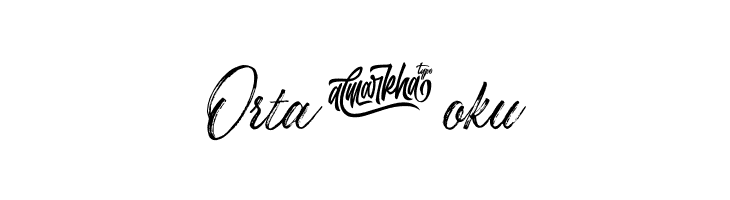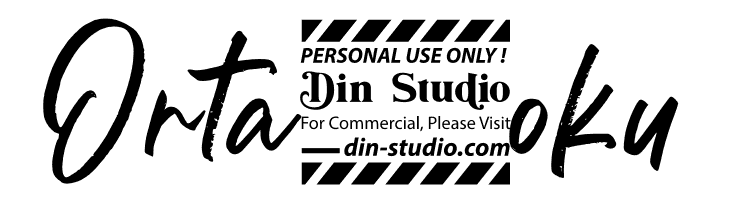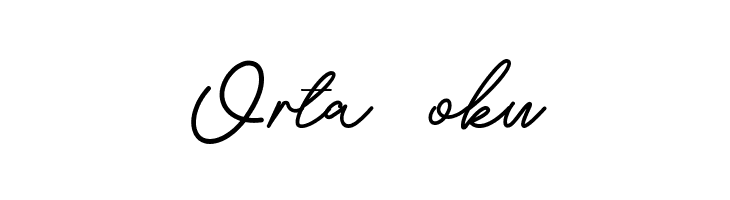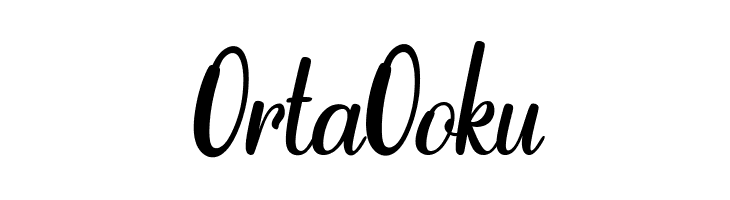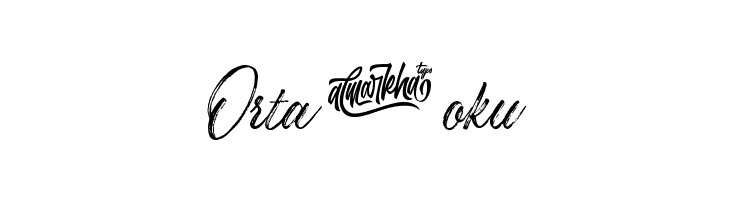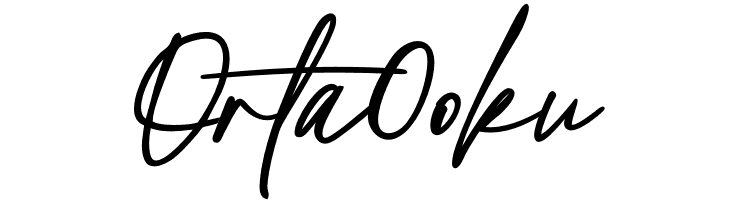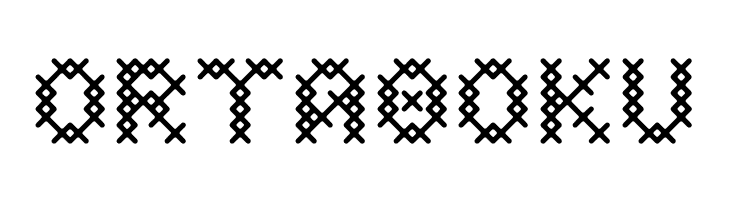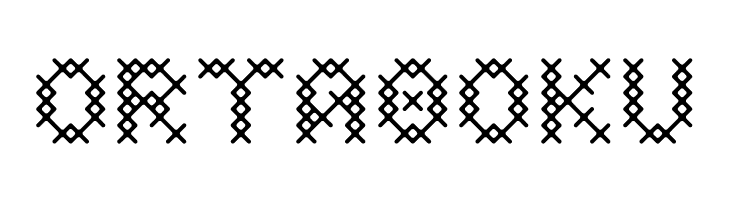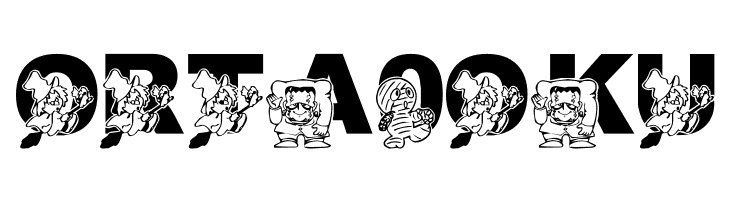
Costa Rica Font
Rafael Ferran i Peralta
A bold, geometric font with a strong, modern aesthetic.
Costura Light Font
A cross-stitch patterned font with a handcrafted, artisanal feel.
Hotel Costes Personal Use Regular Font
An ornate and elegant script font with decorative flourishes.
Costura Bold Font
A bold, cross-stitch patterned font with a handcrafted, embroidered look.
PykesPeakZero Font
Font by Sentinel Type - James Arboghast
A modern, geometric font with subtle curves and a playful touch.
Costura DemiBold Font
A decorative font with a cross-stitch embroidery style.
Costa Rica Personal Use Font
An elegant script font with flowing lines and decorative curves.
Costyle Font
Font by Riyadh Rahman
A lively, cursive font with a fluid and elegant handwriting style.
Palladam Medium Font
A clean, modern font with consistent stroke width and balanced character design.
La Coste Inline Font
Peter Olexa - www.dealjumbo.com
A bold, decorative font with inline detailing and sharp serifs.
Costa Rica Personal Use Font
A dynamic, expressive handwritten font with fluid strokes and natural flow.
Davi Costa Font
Font by Davi Costa
A playful, handwritten font with uneven strokes and a casual, organic feel.
RubraCostaPersonalUseOnly-Regul Font
An ornate and decorative font with intricate swirls and flourishes.
Costella Signature Font
Font by Halymunt Studio
Elegant, handwritten script with a signature-like appearance.
BAZAR COSTA Font
A bold, vintage-style font with thick, block-like characters.
La Costa Dorada is Spain Font
A bold, distressed font with a rugged, vintage appearance.
Soldier of the Dark Font
A gritty, distressed font with a rugged, textured appearance.
William Costinavel Font
An elegant, flowing script font with a natural handwritten style.
Costella Font